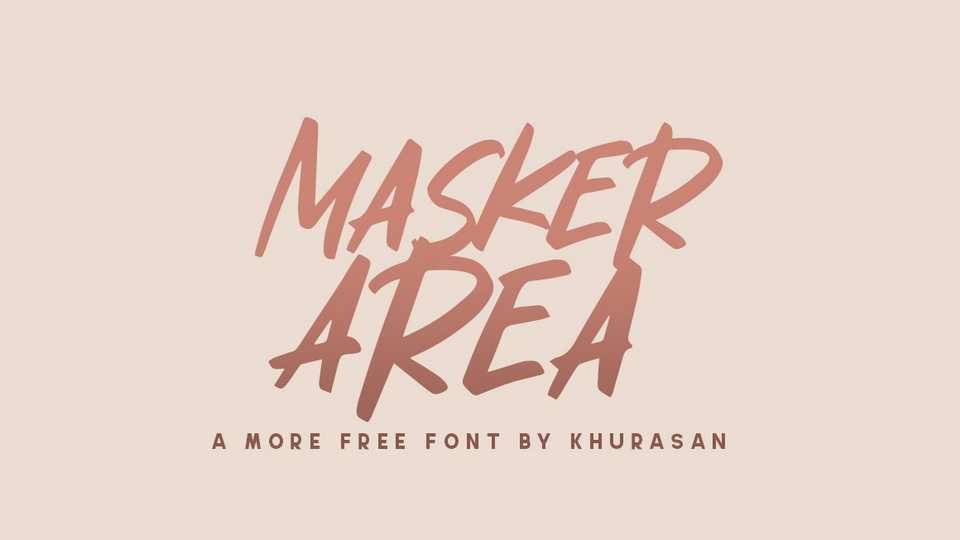
Download Masker Area font, a modern hand brushed handwritten typeface with a casual feel. Use Masker Area for ads, logos, branding or any other design that requires a cool look.